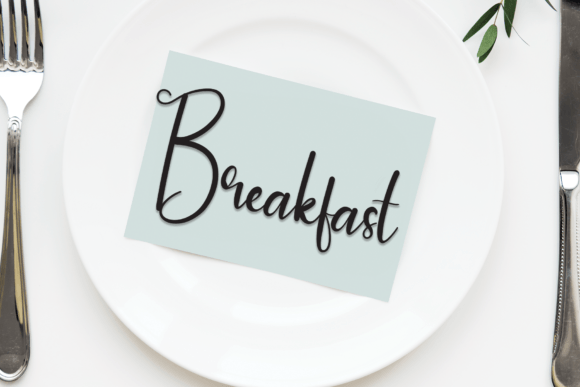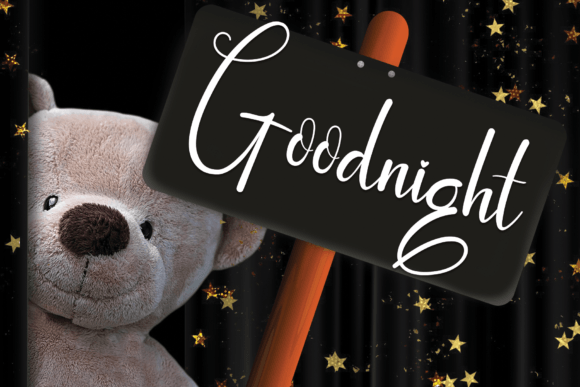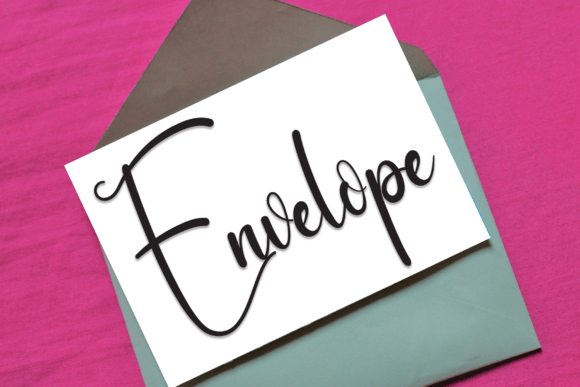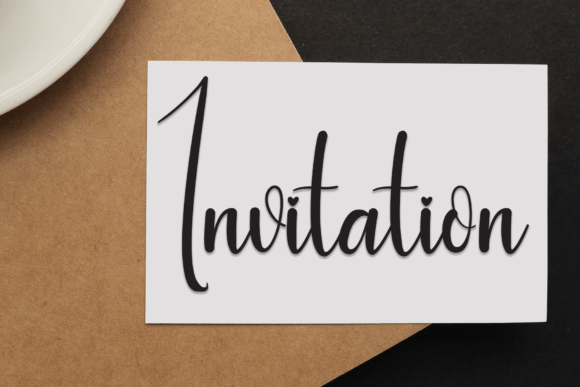
Witch Font
About Witch Font
A Sweet Script with Playful Charm
The Witch Font download brings a lovely, handwritten feel to any project. With its soft curves and whimsical letterforms, this script is designed to spark emotion and warmth. It’s ideal for creatives looking to add a romantic and personal touch to their work.
Perfect for Special Moments
This charming font shines in both digital and print design. Consider using it in:
• Wedding invitations
• Love letters and greeting cards
• Social media content
• Gift tags and packaging
• Scrapbooking and journaling
No matter the setting, Witch Font adds a heartfelt tone that feels authentic and handcrafted.
Easy to Use and Fully Accessible
Create with Confidence
Whether you’re preparing a romantic card or designing a product label, the Witch Font download ensures your work will look polished yet personal. Its sweet and balanced form makes it versatile for any theme involving love, warmth, and joy.